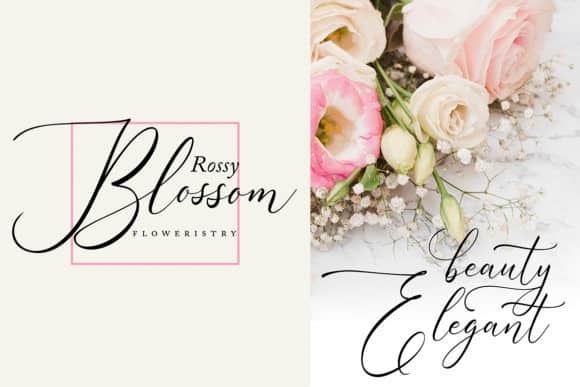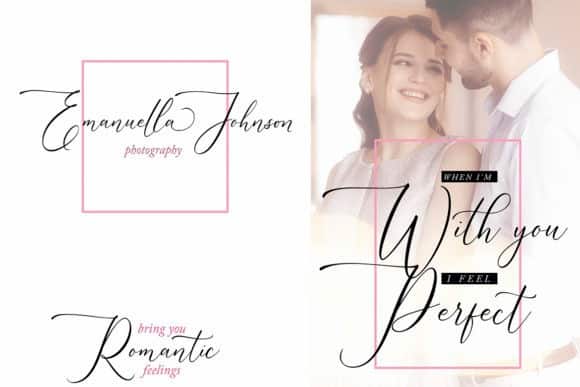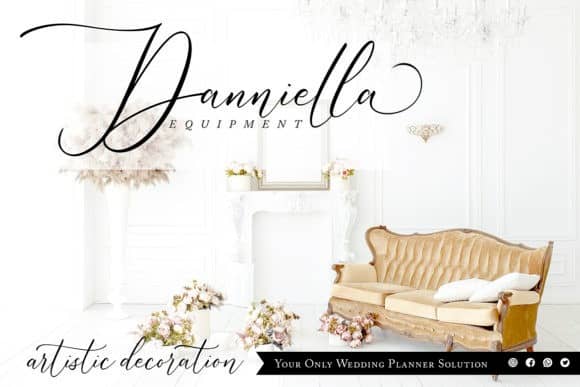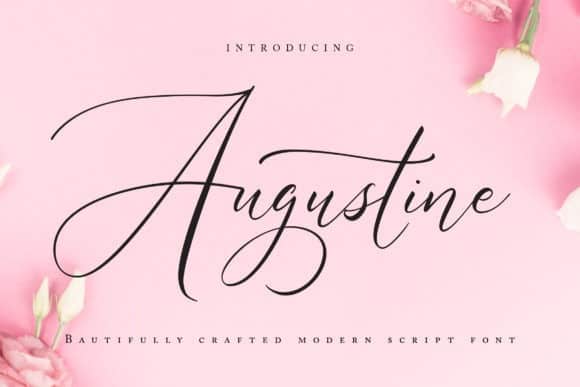
Augustine Calligraphy Font
Introducing Augustine Script modern calligraphy font. This is a classic thin font with an italic style. Here you will get a beautiful classic font. A stunning script with a bold vibe. Use it to add a touch of elegance to any creative project! This font is available in several modern swirls that can make your work look elegant, sweet and perfect.